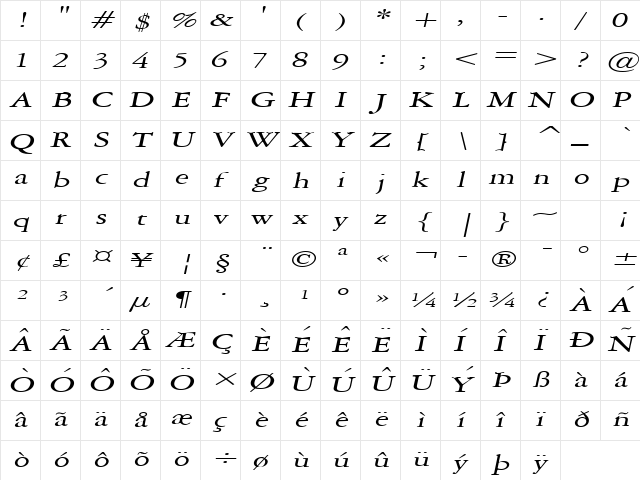
Amery Extended is a composed and adaptable typeface that performs quietly and consistently across a wide range of design contexts. The slanted form adds forward momentum and visual energy.
Pro Tip: Use Amery Extended for emphasis, pull quotes, and subheadings where its slanted energy can add rhythm to the layout.